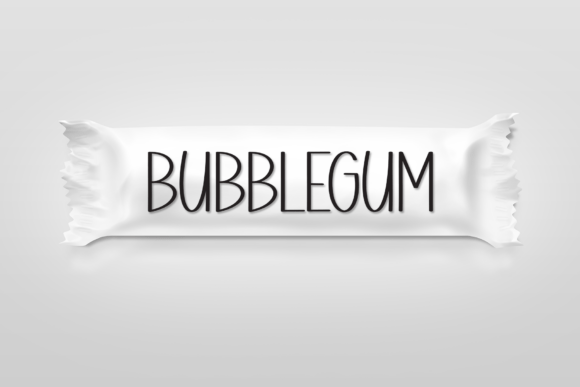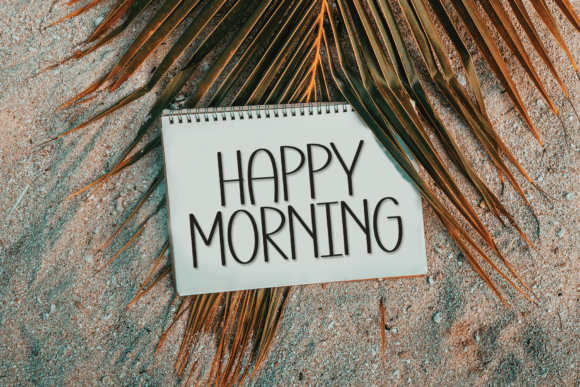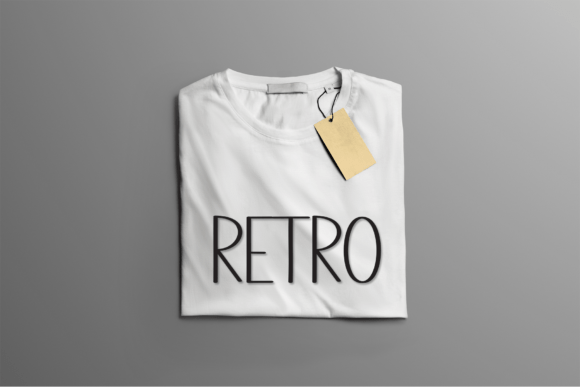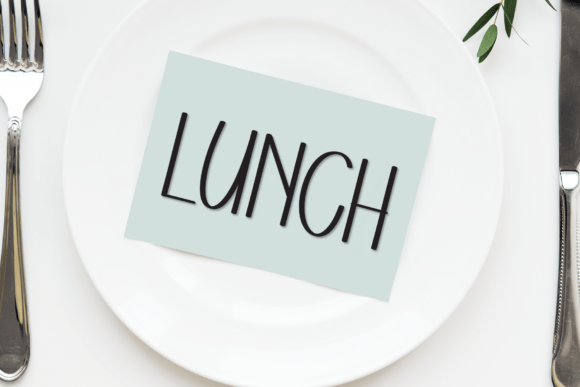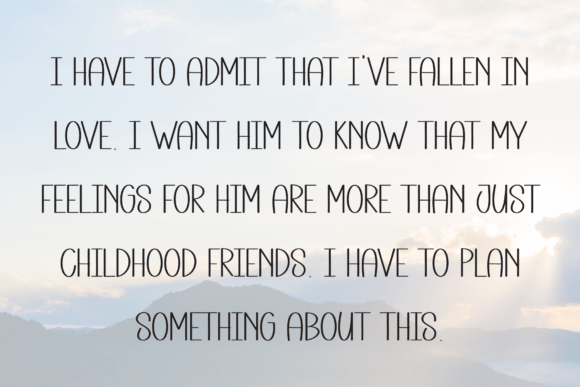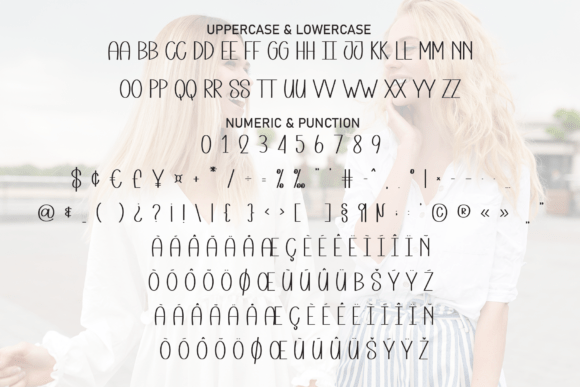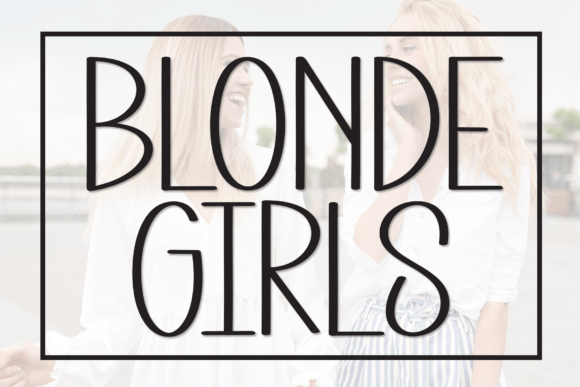
Blonde Girls Font: Add a Touch of Whimsy to Your Designs
Are you tired of using the same old fonts in your designs? Do you want to add a touch of personality and whimsy to your creations? Look no further than the Blonde Girls Font, a delightfully unique and personable handwritten font that’s sure to charm.
A Font that Embodies Charming and Playful Character
The Blonde Girls Font is a beautifully crafted handwritten font that exudes a charming and playful character. Its sweet friendliness is expressed through every curve and stroke, making it the perfect addition to any design that needs a personal touch. Whether you’re addressing wedding invitations, designing delightful cards, or working on a series of designs that require a dash of excitement, this font is the perfect resource.
The Blonde Girls Font is versatile and can be used for a variety of design projects. Here are a few ideas to get you started:
- Wedding Invitations: Add a touch of elegance and whimsy to your wedding invitations with the Blonde Girls Font. It’s the perfect way to set the tone for a romantic and playful wedding celebration.
- Cards and Stationery: Whether you’re designing birthday cards, thank-you notes, or greeting cards, the Blonde Girls Font is sure to add a personal touch.
- Digital Designs: Use the Blonde Girls Font in your digital designs, such as social media graphics, blog posts, and website headers, to add a touch of personality and whimsy.
- Crafting Projects: If you’re a crafter, you’ll love using the Blonde Girls Font in your projects, such as scrapbooking, journaling, and paper crafting.
What Makes the Blonde Girls Font Special?
So, what makes the Blonde Girls Font so special? Here are a few features that set it apart:
- Unique and Handwritten: The Blonde Girls Font is a truly unique and handwritten font, which means it has a personal touch that’s hard to find with more traditional fonts.
- Playful and Whimsical: This font has a playful and whimsical feel that’s perfect for designers who want to add a touch of personality to their creations.
- Elegant and Refined: Despite its playful nature, the Blonde Girls Font is also elegant and refined, making it suitable for more formal design projects.
Tips for Using the Blonde Girls Font
Here are a few tips for using the Blonde Girls Font in your designs:
- Pair it with Other Fonts: Experiment with pairing the Blonde Girls Font with other fonts to create a unique and interesting contrast.
- Use it in Headlines and Titles: The Blonde Girls Font is perfect for headlines and titles, where its playful and whimsical nature can really shine.
- Add it to Your Digital Toolkit: If you’re a digital designer, consider adding the Blonde Girls Font to your toolkit, where it can be easily accessed and used in a variety of projects.
In conclusion, the Blonde Girls Font is a delightful and unique handwritten font that’s perfect for designers and crafters who want to add a touch of personality and whimsy to their creations. With its charming and playful character, sweet friendliness, and versatility, this font is sure to become a favorite in your design toolkit. So why not give it a try and see how it can add enchantment and excitement to your designs?